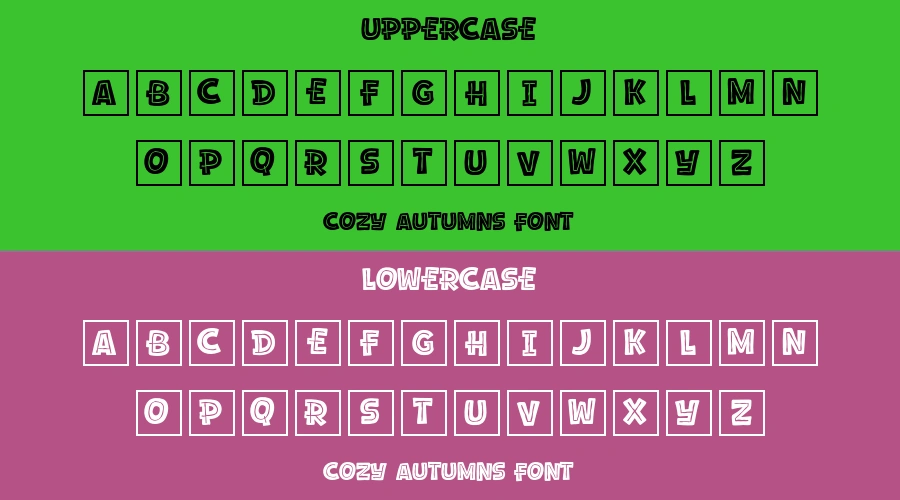
About Cozy Autumns Font
Designed with precision, Cozy Autumns Font merges artistic freedom with accuracy in every character. This versatility makes it particularly effective for brand identities, where longevity and market relevance directly impact communication quality. Each letterform demonstrates meticulous craftsmanship.
Technical excellence shines through elements like geometric precision and terminal forms, enhancing typographic versatility. In promotional materials settings, Cozy Autumns Font proves its worth through superior reproduction fidelity. The thoughtful execution of counter size and scientific authority ensures professional results.